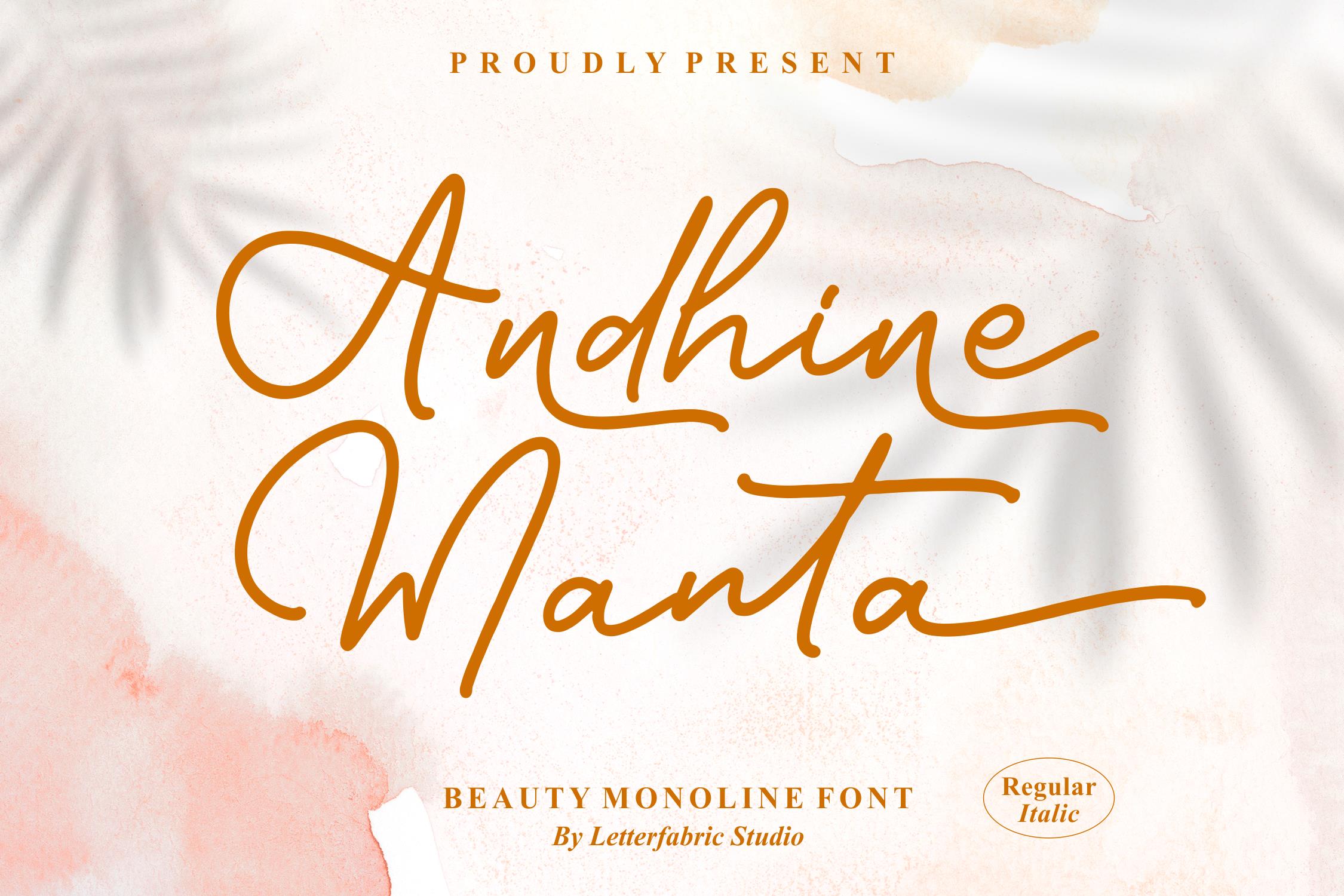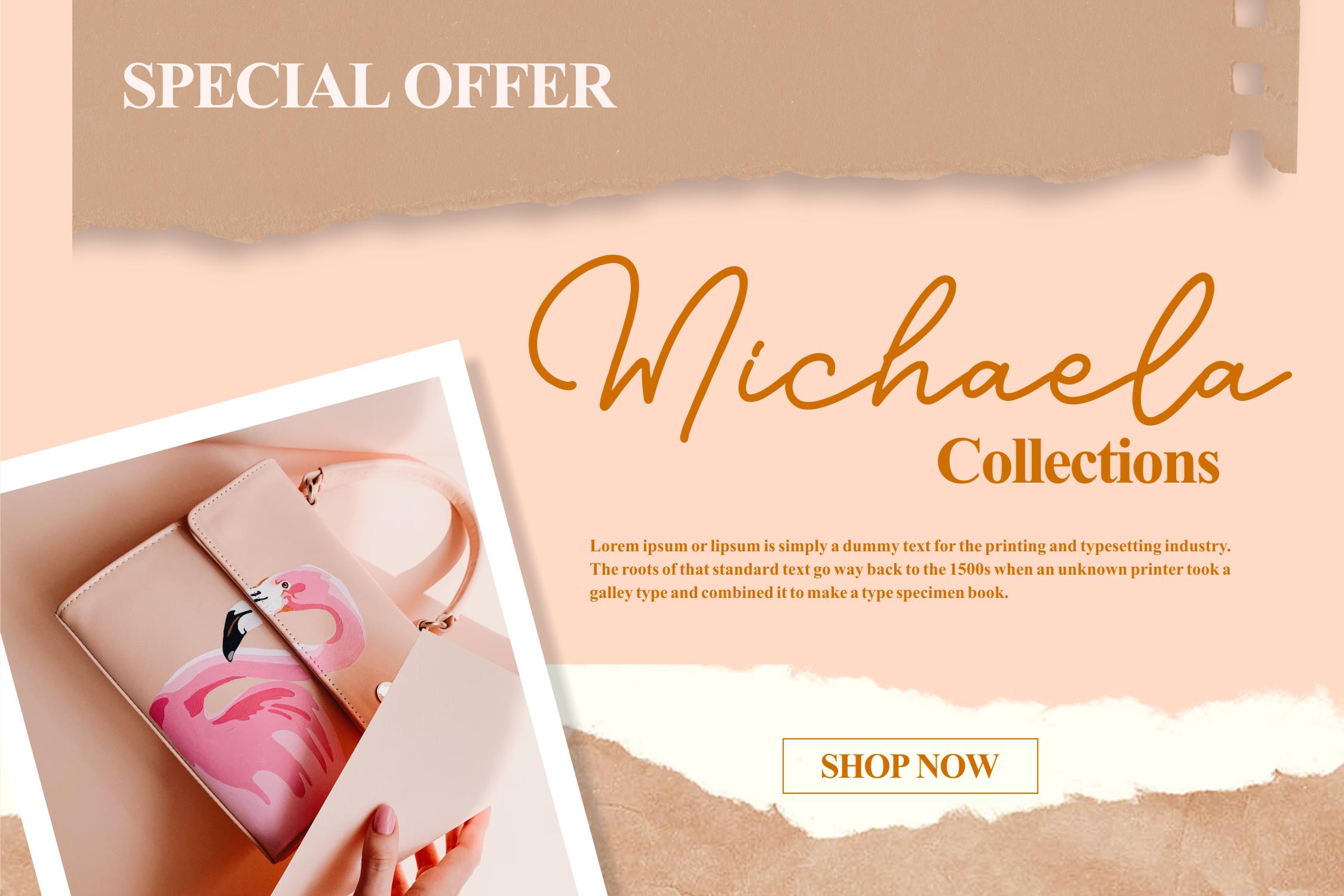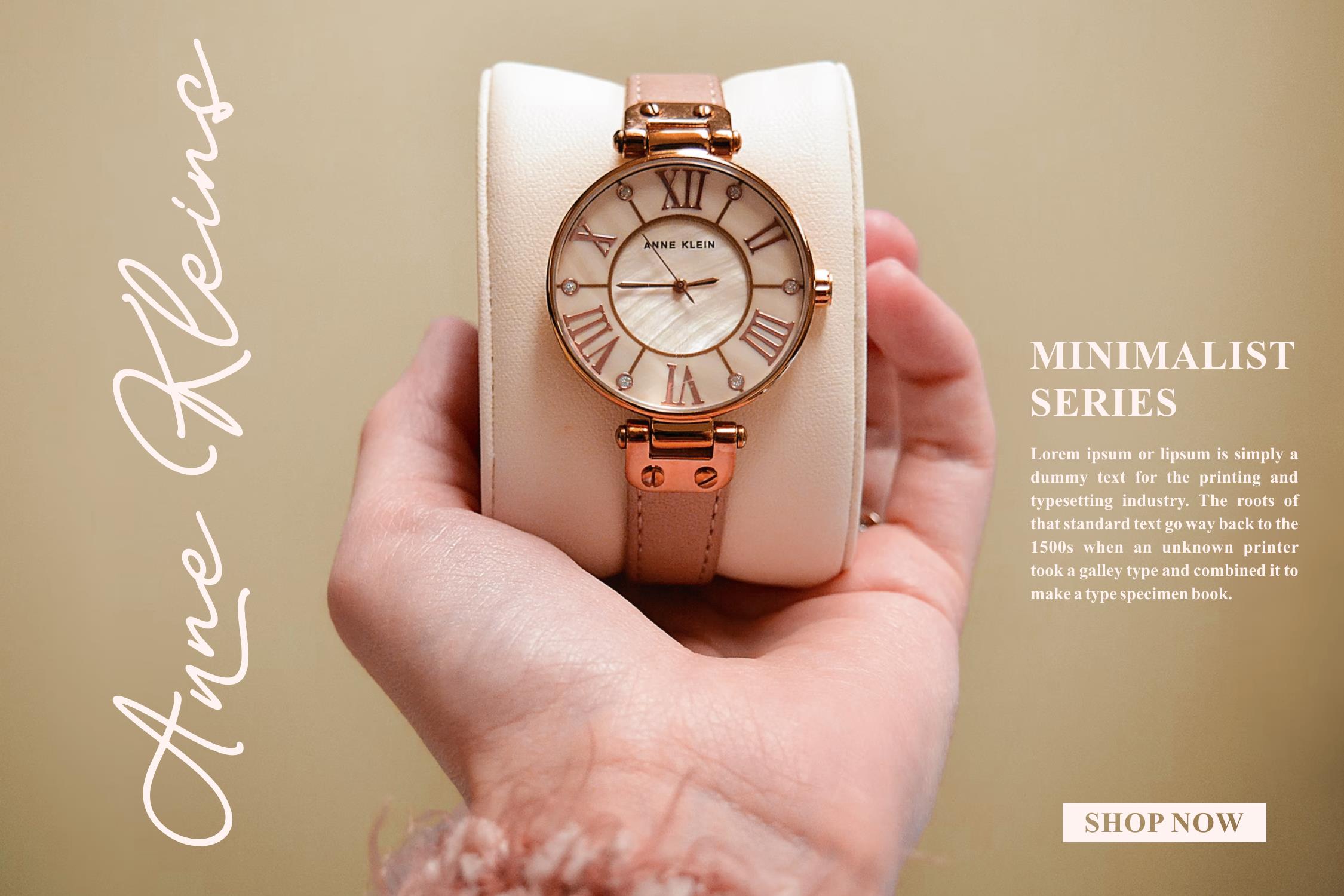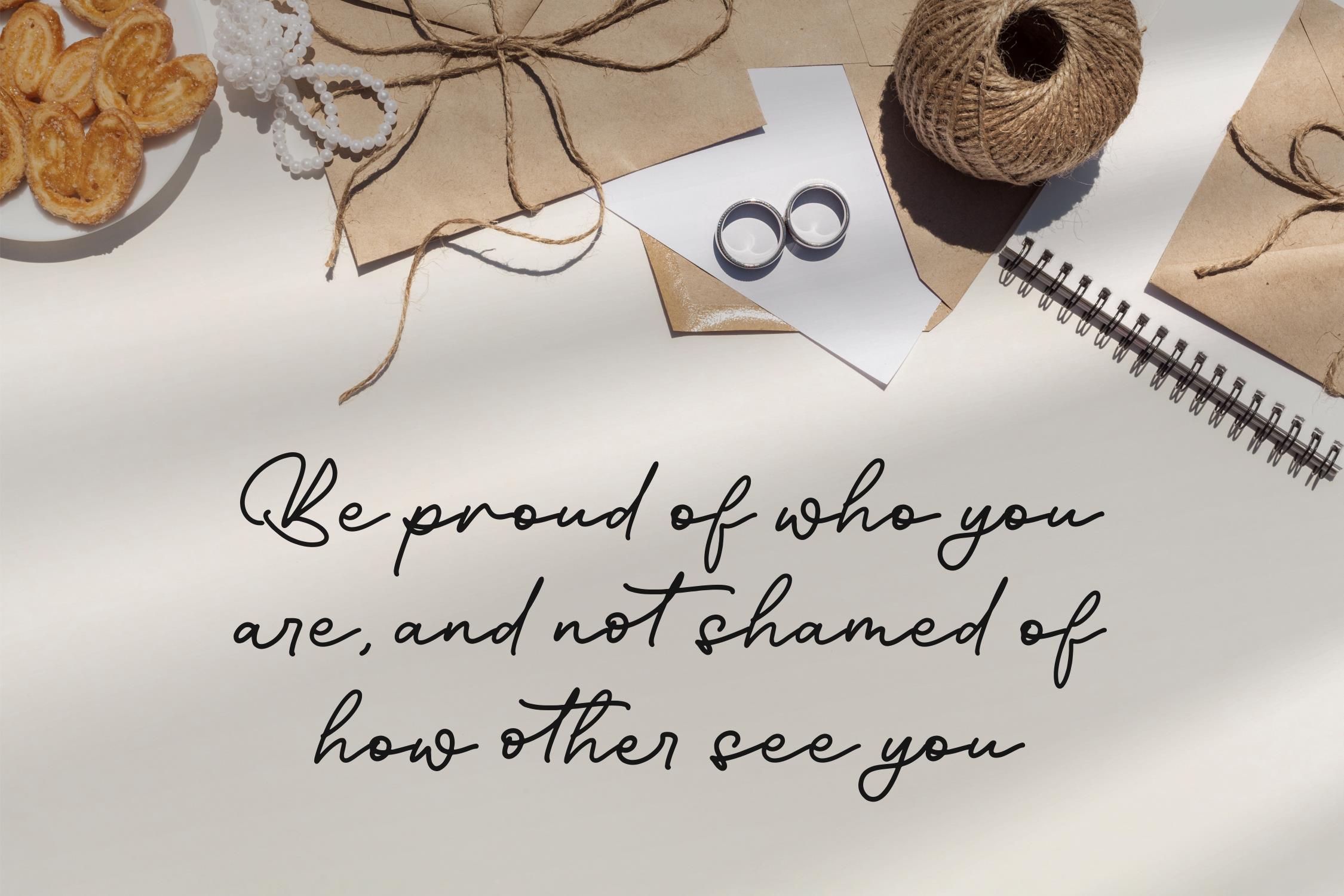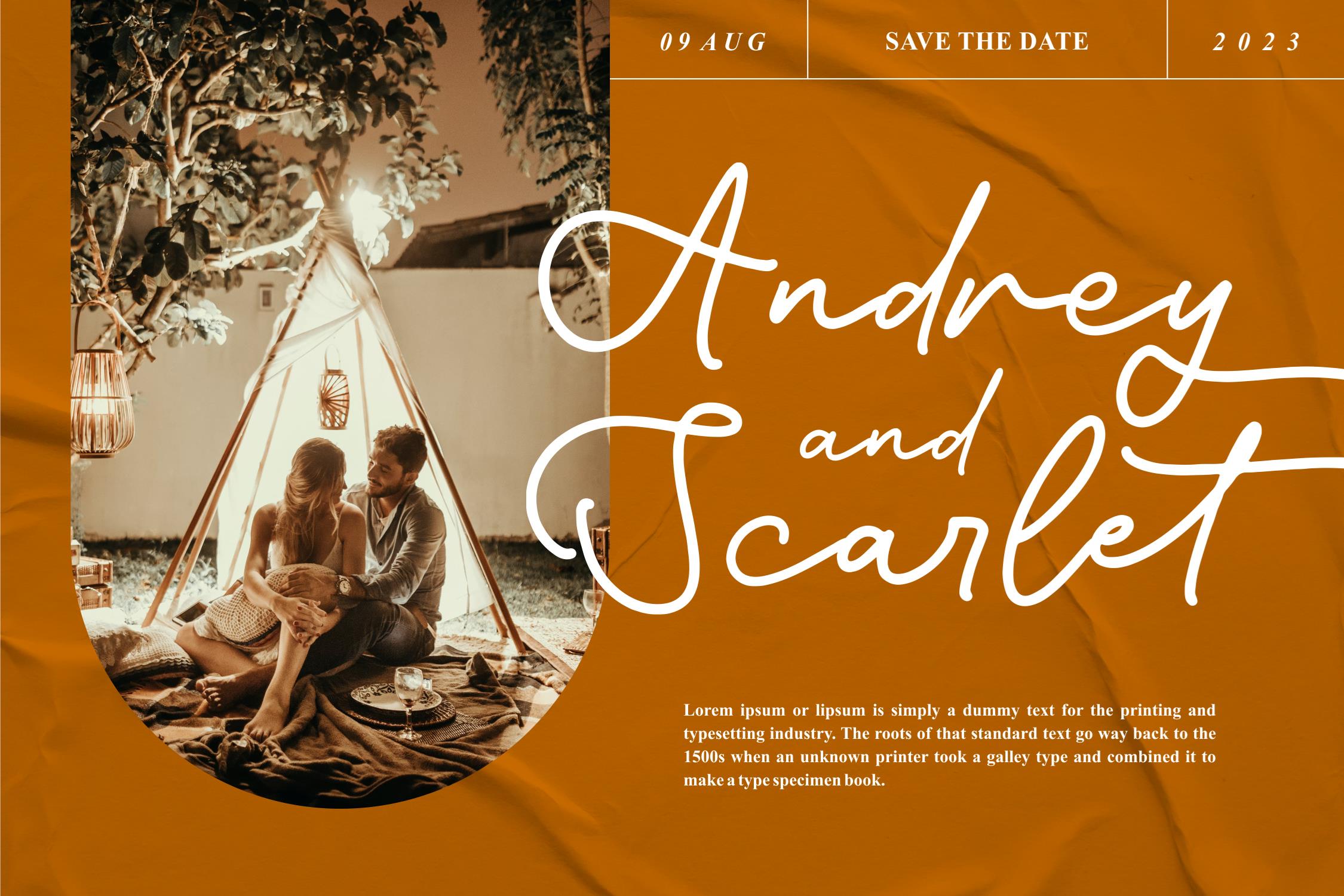
Andhine Manta Script Font
This is a beautiful script font, suitable for any projects such as: logos, branding projects, homeware designs, product packaging, mugs, quotes, posters, shopping bags, t-shirts, book covers, name card, invitation cards, greeting cards, label, photography, watermark, special events, and all your other lovely projects that need a beautiful script taste.